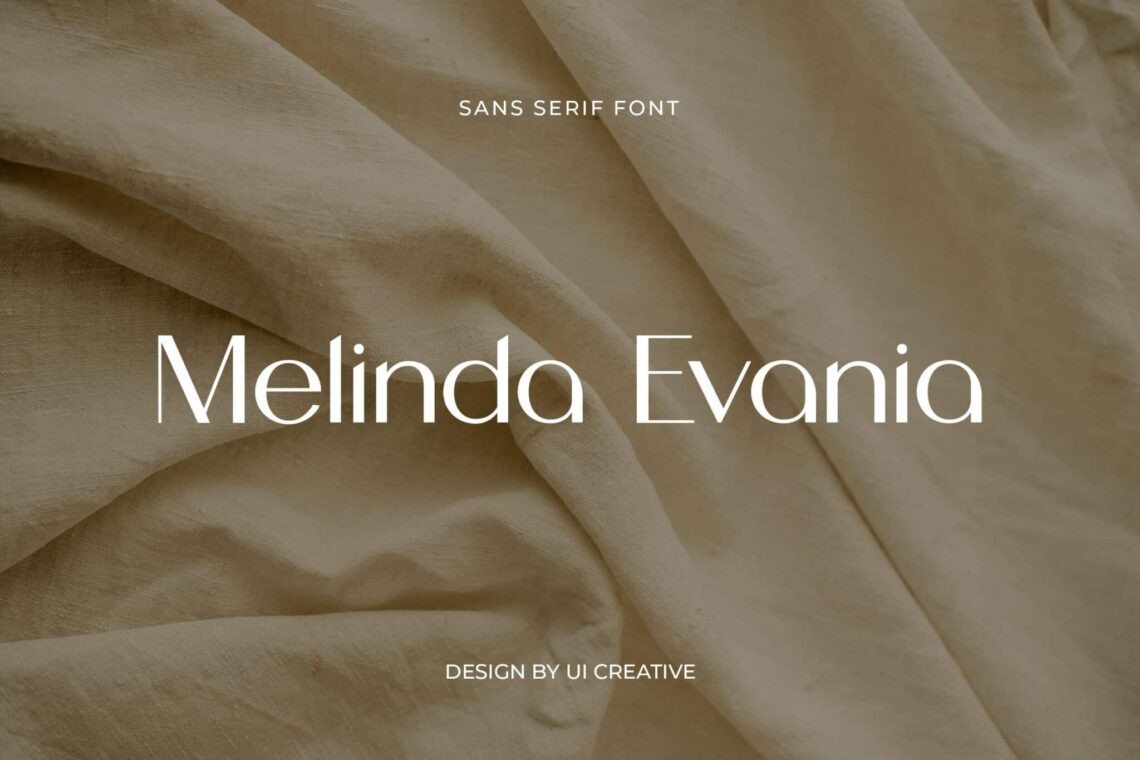
10 Best Font for Quotes 2025
Choosing the right font is crucial when presenting quotes, as it not only enhances the visual appeal but also impacts the readability and emotional resonance of the message. As we step into 2025, the world of typography continues to evolve, offering designers and content creators a wide variety of fonts to bring words to life. Whether you’re creating social media posts, book covers, or inspirational graphics, the best font for quotes 2025 can make all the difference in how the message is perceived.
10 Best Font for Quotes 2025
In this article, we will explore the top 10 best font for quotes 2025, each handpicked for its elegance, versatility, and ability to amplify the power of your words.
1. Cohabited Modern Sans Serif Family Font
The Cohabited Modern Sans Serif Family Font is a versatile and contemporary typeface designed to bring a sleek and professional touch to any design project. Featuring clean lines, balanced proportions, and a modern aesthetic, this font family includes a range of weights and styles, making it suitable for a wide variety of applications, from branding and advertising to digital interfaces and editorial layouts.
Its simple yet elegant structure ensures excellent legibility both in print and on screen, making it a perfect choice for creating sophisticated and contemporary designs. Whether you’re working on a logo, website, or print materials, the Cohabited font family delivers a refined, polished look that adapts seamlessly to any creative endeavor.
2. Masonries Sans Modern Sans Serif Family Font
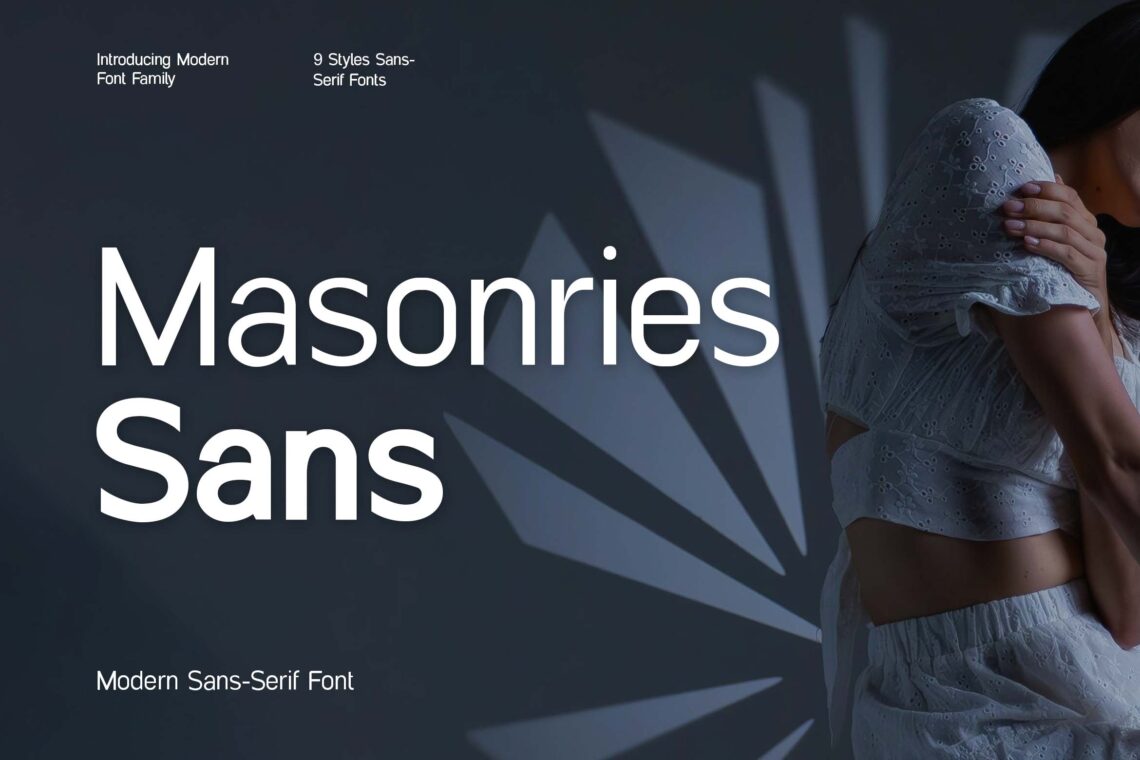
The Masonries Sans Modern Sans Serif Family Font is a stylish and contemporary typeface designed to offer a perfect blend of elegance and clarity. With its sleek, geometric shapes and clean lines, this font family brings a modern, professional touch to any project.
Available in multiple weights and styles, it provides versatility for a wide range of applications, including branding, web design, editorial work, and print media. The Masonries font ensures excellent readability and works beautifully across both digital and print platforms. Its minimalist and balanced design makes it ideal for projects that require a sophisticated, contemporary feel while maintaining strong legibility.
3. Homegrown Modern Elegant Sans Serif Font
The Homegrown Modern Elegant Sans Serif Font is a refined and stylish typeface that combines modern sophistication with timeless elegance. Featuring clean lines and balanced proportions, this font is perfect for creating a polished, contemporary look across various design projects. Whether used for branding, editorial layouts, websites, or advertising, its sleek and minimalistic style ensures excellent legibility and visual appeal.
The font’s versatile design offers a harmonious blend of modernity and class, making it an ideal choice for projects that require both elegance and readability. Perfect for high-end brands, creative agencies, and upscale presentations, the Homegrown font family delivers a sophisticated yet approachable feel.
4. Hypodermic Modern Sans Serif Font
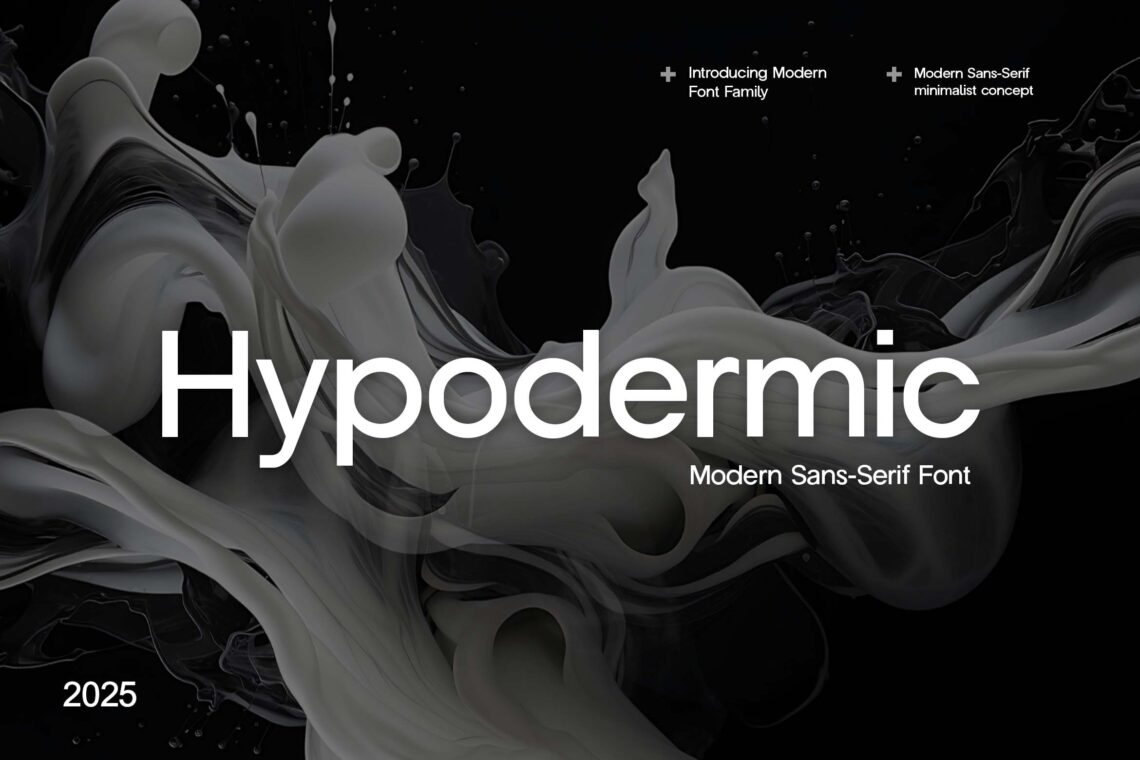
The Hypodermic Modern Sans Serif Font is a bold and contemporary typeface designed to make a strong visual impact. With its sleek, geometric structure and clean, crisp lines, it offers a modern and minimalist aesthetic that works well in both digital and print designs.
Perfect for branding, headlines, posters, and promotional materials, this font combines readability with a distinctive style, making it ideal for projects that demand attention. Its sharp angles and contemporary form bring a sense of precision and professionalism, while maintaining an approachable, clean look. Whether you’re designing for tech, fashion, or creative industries, Hypodermic provides the ideal balance of modernity and functionality.
5. Country Wood Rustic Elegant Font
The Country Wood Rustic Elegant Font is a unique typeface that beautifully blends rustic charm with refined elegance. Inspired by the natural textures of wood and earthy aesthetics, this font features organic, hand-crafted letterforms that evoke a warm, inviting feel. Its elegant curves and slightly distressed edges make it perfect for projects that aim to convey a sense of tradition, authenticity, and sophistication.
Ideal for rustic branding, vintage-style logos, packaging, wedding invitations, and home décor designs, this font brings a touch of nature-inspired elegance to any creative endeavor. Country Wood seamlessly combines the raw beauty of the outdoors with a polished, upscale look, making it an excellent choice for projects with a rustic yet refined appeal.
6. Wockie Bookers Modern Serif Typeface
The Wockie Bookers Modern Serif Typeface is a sophisticated and stylish font designed to bring a contemporary edge to classic serif typography. With its refined details, balanced letterforms, and modern touch, this typeface exudes both elegance and professionalism. Its clean lines and subtle serifs provide excellent readability, making it ideal for editorial layouts, branding, logos, headlines, and print media.